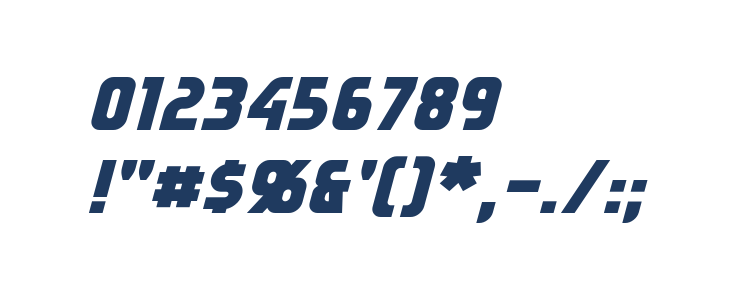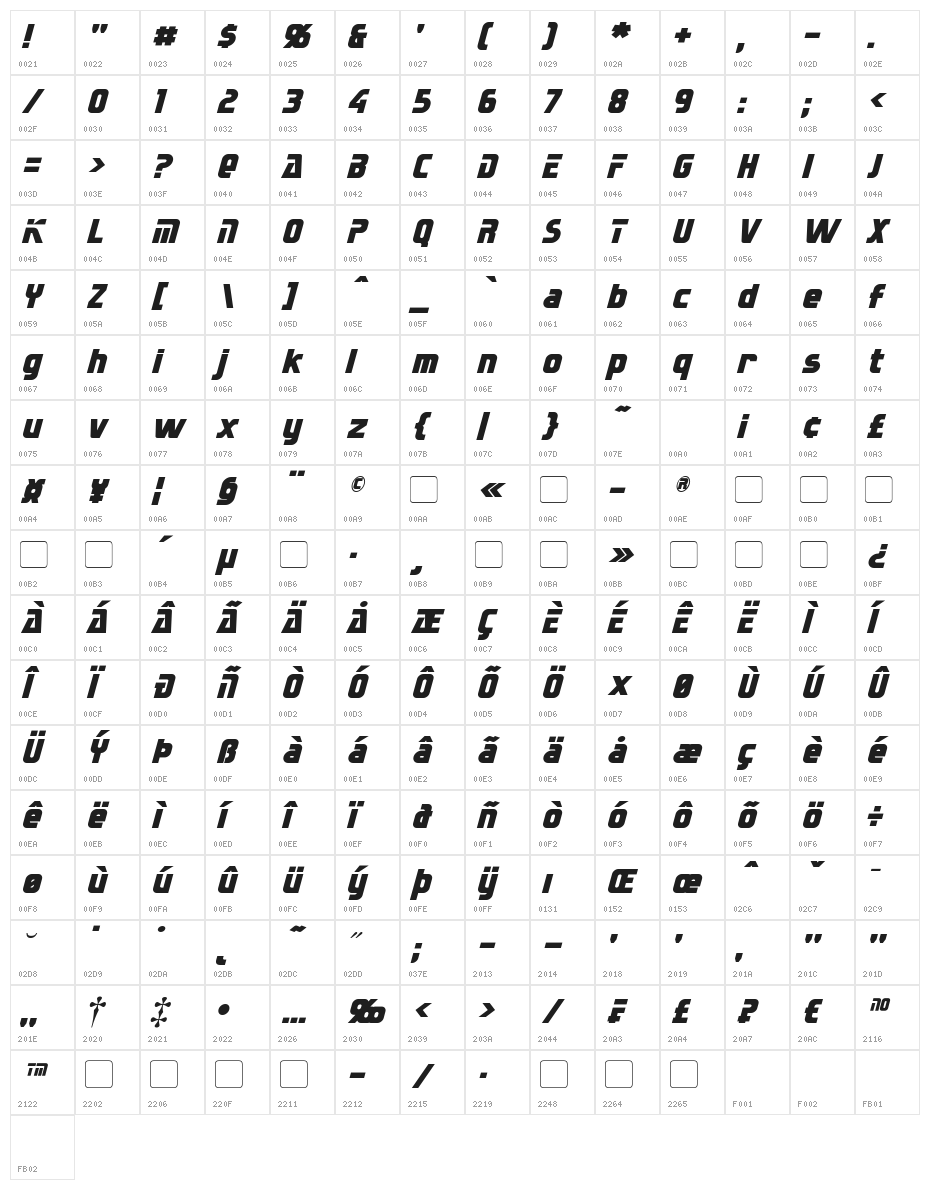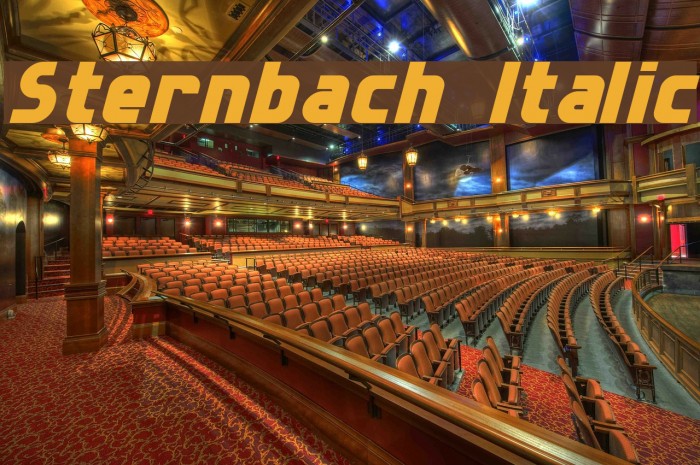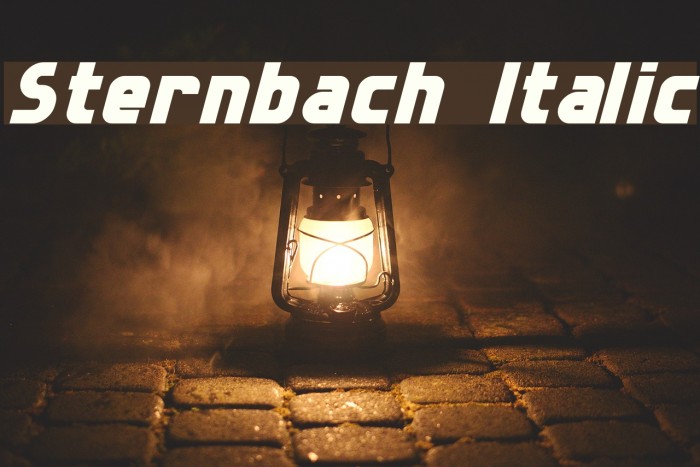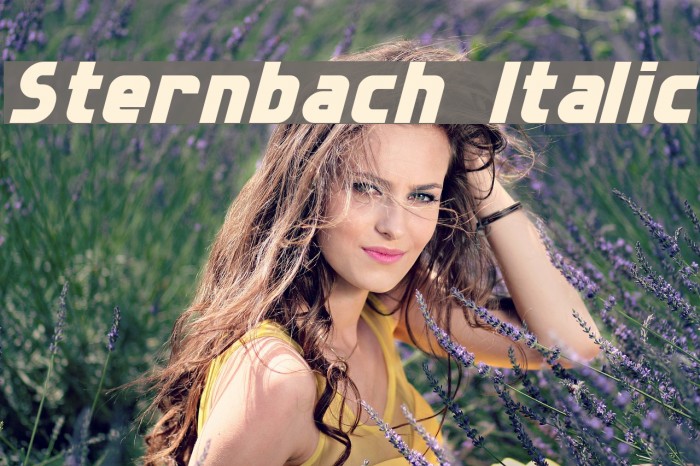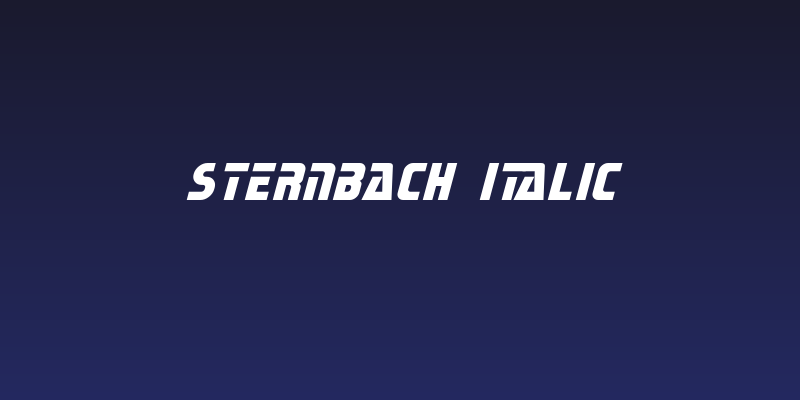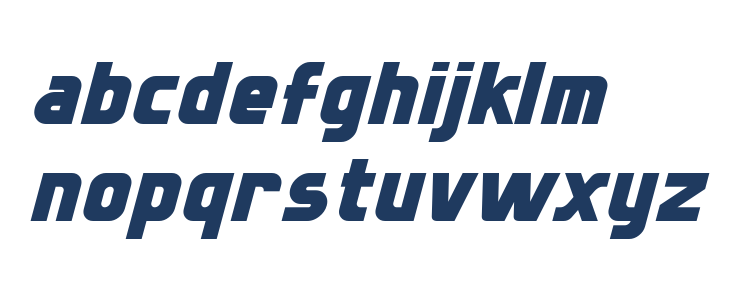
Sternbach Italic Font
Sternbach Italic Description
This font exhibits a bold and dynamic style with a strong italic slant, giving it a sense of motion and urgency. The characters are robust and slightly condensed, with a modern and futuristic appearance. The uppercase letters are particularly striking, featuring sharp angles and clean lines that enhance their boldness. The lowercase letters maintain the same energetic style, ensuring consistency across the typeface. The numerals are clear and legible, designed to stand out with their bold structure. Special characters are well-integrated, matching the overall aesthetic of the font. This typeface is ideal for projects that require a strong visual impact.